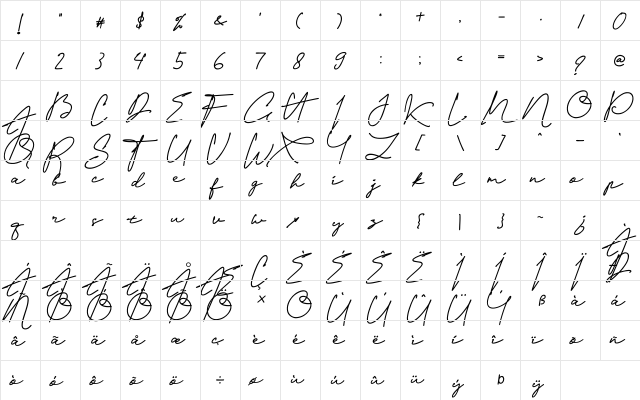
The Bright Road Regular
| Designer | Muhamad Ali Hasan |
Design Context for The Bright Road Typeface
The Bright Road is a composed and adaptable typeface that performs quietly and consistently across a wide range of design contexts.